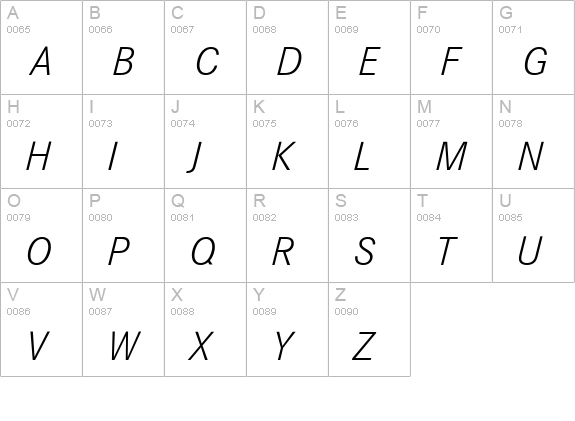
Corporate S Light Italic is a refined, elegant, italic variant in the Corporate typeface family \xE2\x80\x94 well suited to elegant body text, refined sub-headings, and luxury branding.
Introducing Corporate S Light Italic font - a modern and elegant typeface perfect for corporate branding, editorial design, and digital projects. With its sleek and sophisticated design, this font exudes professionalism and sophistication. The Light Italic style adds a touch of refinement and fluidity to any text or design it is applied to. And the best part? Corporate S Light Italic font is available for free download at FontsMarket.com. Whether you're working on a professional presentation, a sleek website design, or a stylish branding project, this font is a must-have in your typographic arsenal. Don't miss out on the opportunity to enhance your projects with this versatile and eye-catching typeface - download Corporate S Light Italic font today!